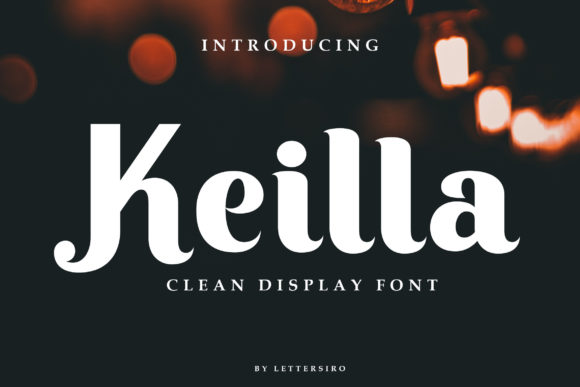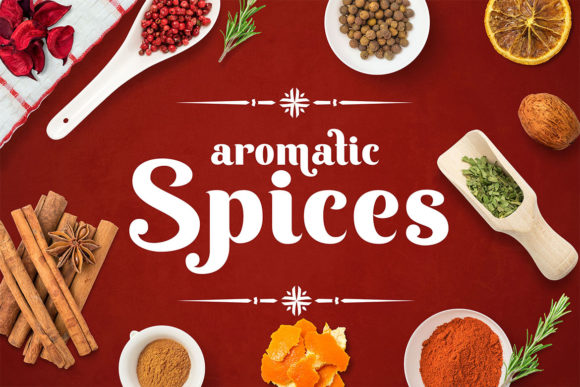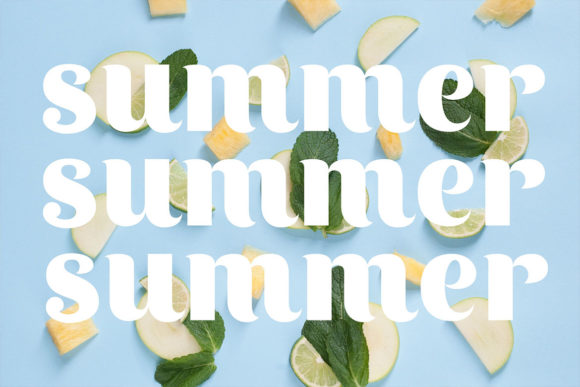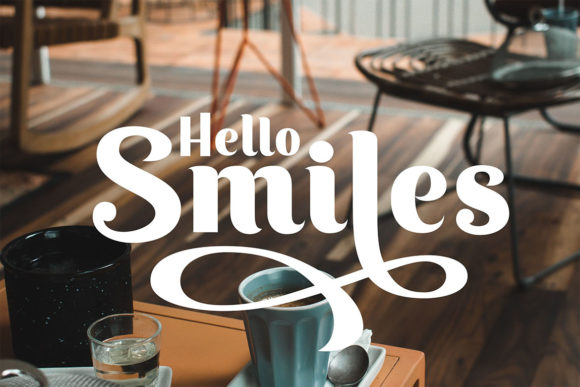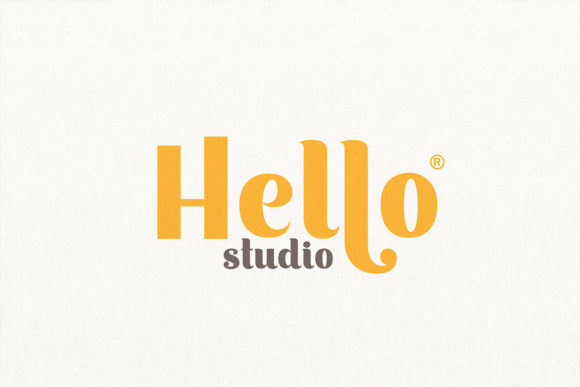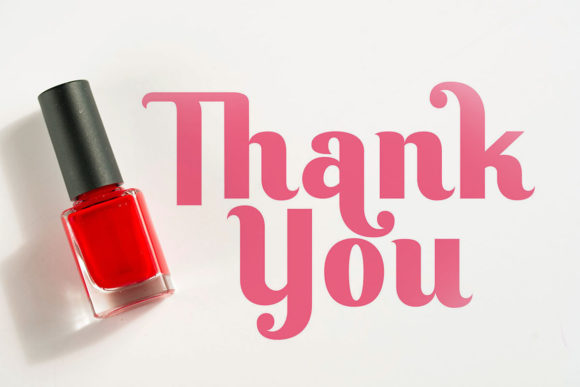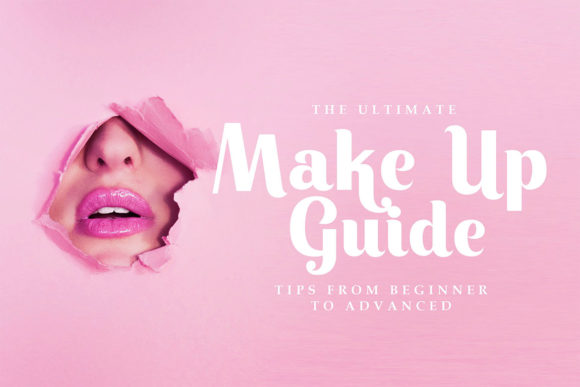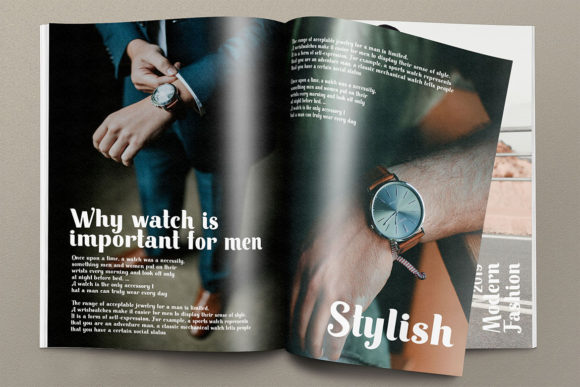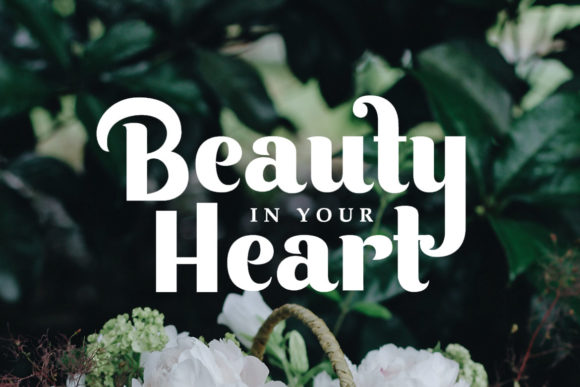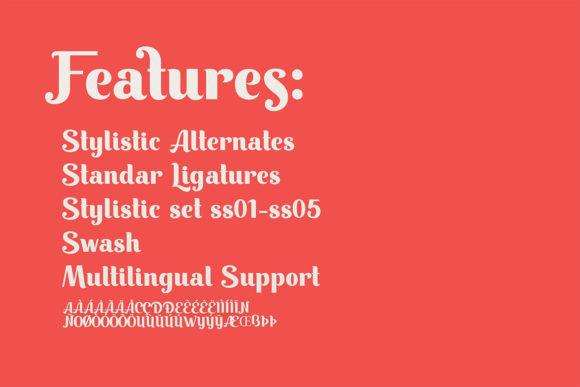
Keilla Font
About Keilla Font
The Keilla is a clean display font. It’s simple, eye catching and is perfect for logos, magazines, posters, and much more!